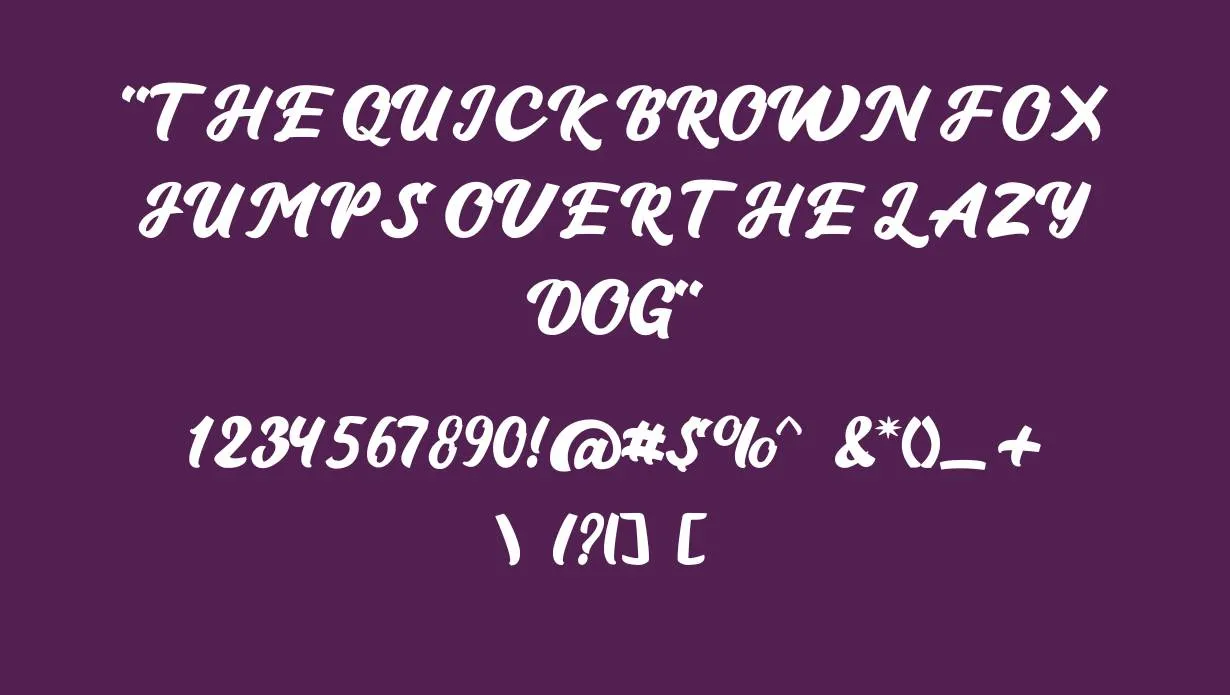
Cantana Font is a sleek and modern typeface that adds a contemporary touch to design projects. With its clean lines and versatile design, it’s often used in branding, web design, and various applications where a modern and sophisticated appearance is desired.
The font’s simplicity and clarity make it a valuable tool for creating sleek and professional design work.